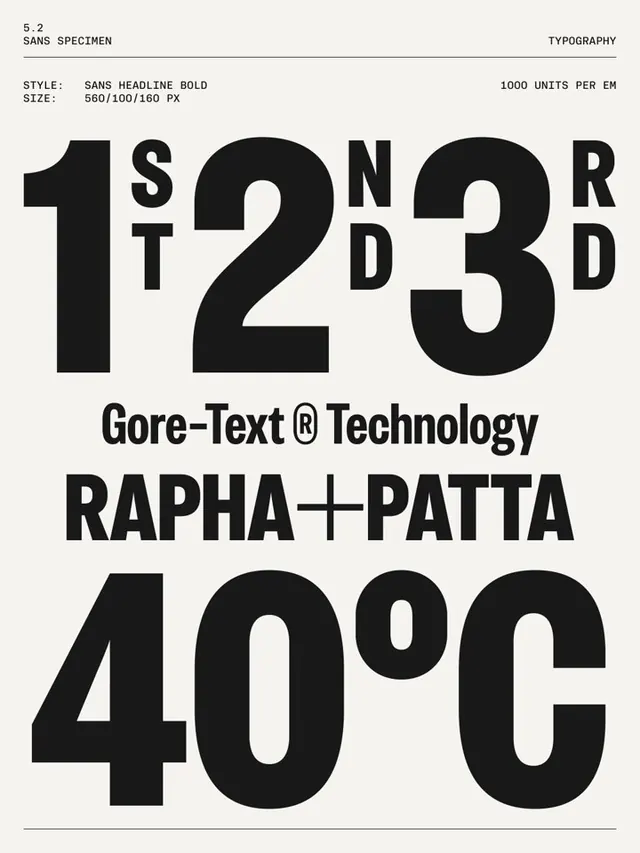
A refined typography specimen series with glyph construction, character sets, and brand preset layouts presented in a clean editorial grid.
A black and white typographic layout featuring large, bold sans-serif numerals 1, 2, and 3 at the top with smaller ordinal suffixes. Below these, the text "Gore-Text ® Technology" and "RAPHA+PATTA" are centered, followed by a massive "40°C" at the bottom. The composition is strictly centered with a high-contrast monochromatic palette and a thin horizontal rule at the base.
Use extreme scale contrast between primary numbers and secondary text to create a clear visual hierarchy.